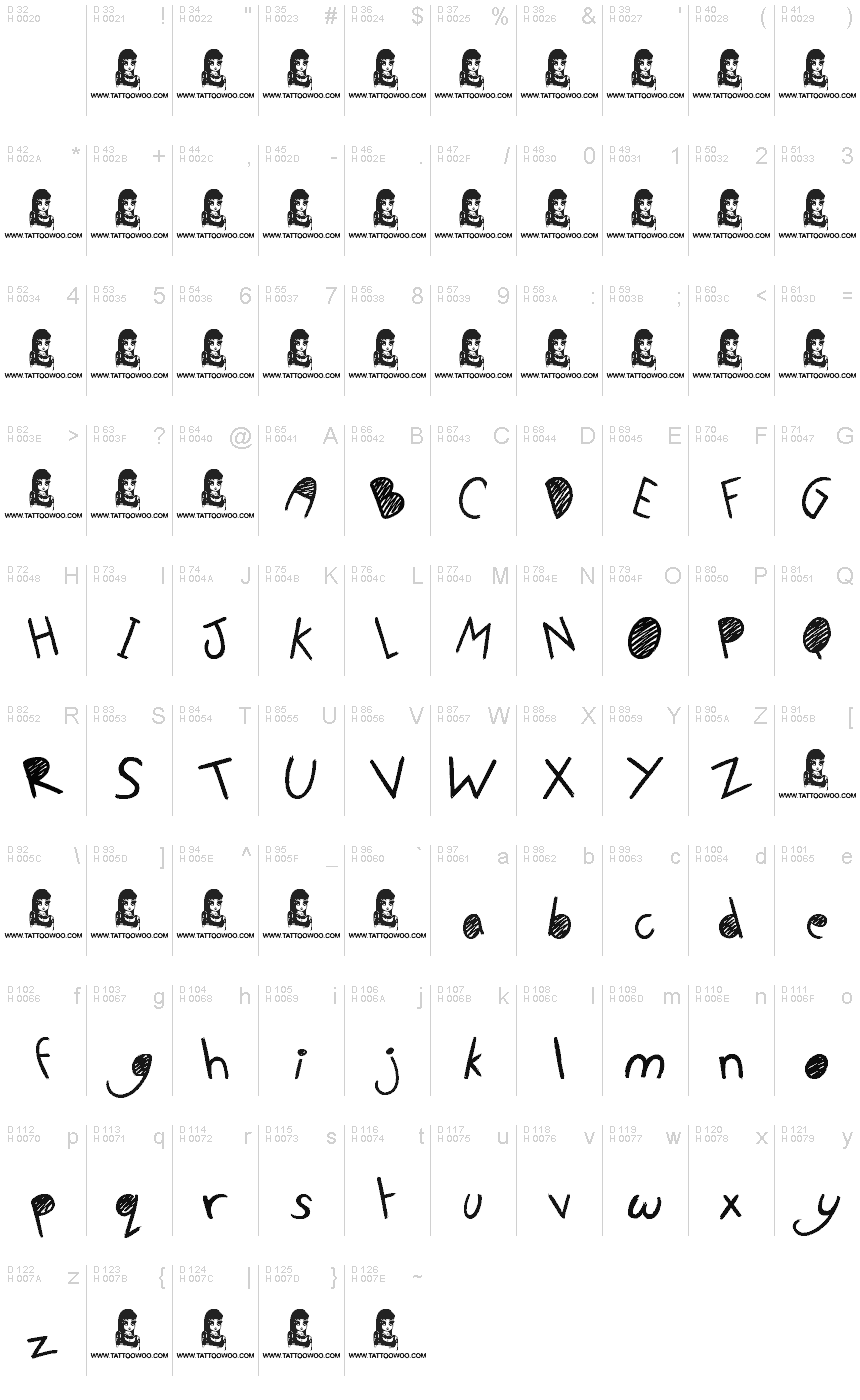
No Talking Allowed
"No Talking Allowed" is a delightfully quirky and playful display font that exudes a distinct cartoon-like charm. Designed by JSH creates, this font's dynamic strokes and whimsical letterforms immediately capture the eye, effortlessly conveying a sense of lively energy and carefree expression.
The uneven, hand-drawn quality of the letters lends the font a charming, informal feel, making it an ideal choice for projects that require a touch of playfulness and character. Its bold, legible design ensures excellent readability, making it suitable for a wide range of applications, from eye-catching headlines and logos to fun-filled product packaging and children's storybooks.